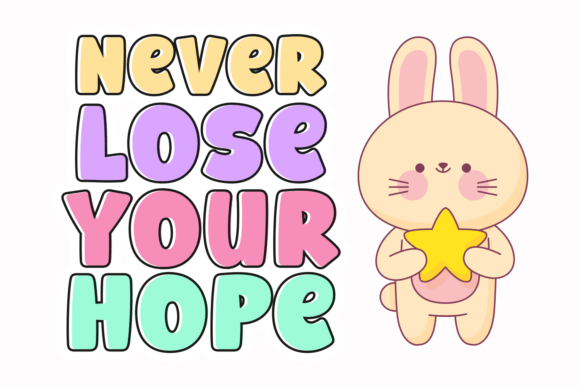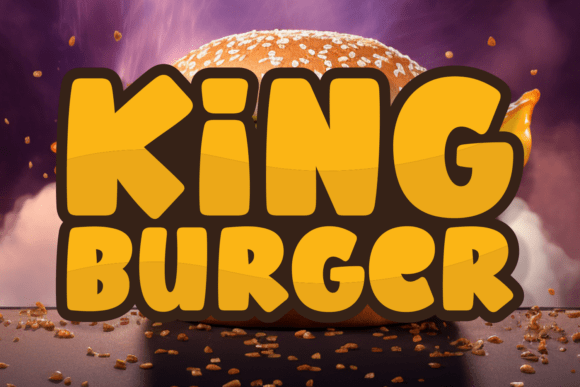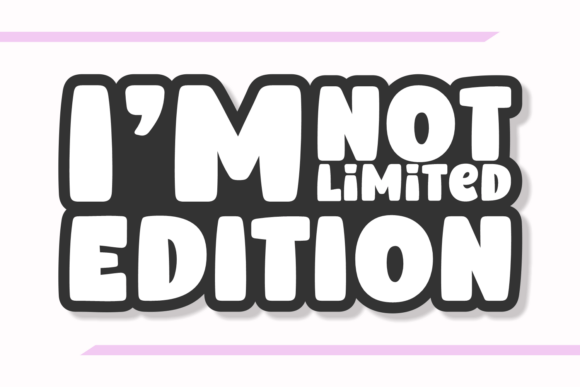
Introduction to Kindly Remind Font
Introducing Kindly Remind, a jubilant display font capturing the vibrancy of youthful zest.
It’s audacious, spirited, and a dash of whimsical character breathes life into any project requiring a jolt of joy The welcoming and readable design makes it the ideal partner for eye-catching headlines, influential posters, and standout brandin,g striving for an unforgettable and clear message.
Key Features of Kindly Remind Font